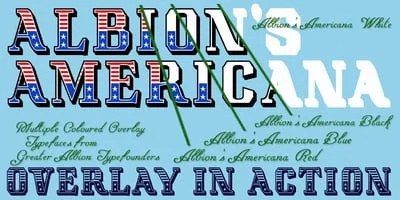
Albion's Americana Font
Albion's Americana Font is perfect for American restaurant branding, patriotic event posters, vintage diner signage, barbecue joint menus, craft brewery labels, country music promotions, Fourth of July celebrations, historical society materials, Americana-themed merchandise, and any project requiring authentic American heritage with nostalgic charm.
What makes Albion's Americana Font exciting is its powerful connection to American tradition and patriotic spirit that evokes the essence of classic Americana culture. The typeface features bold, confident letterforms with vintage-inspired design elements that capture the rugged independence and timeless values of American heritage. Its authentic character design speaks to audiences who appreciate traditional craftsmanship, hometown pride, and the enduring spirit of American entrepreneurship, making it ideal for businesses that want to communicate reliability, authenticity, and deep-rooted American values.
Albion's Americana Font family includes regular and bold weights with complete uppercase and lowercase alphabets, vintage-style numerals, classic punctuation marks, and decorative elements. The typeface features carefully crafted details that reference historical American typography while maintaining modern functionality and excellent readability across all contemporary applications.
Whether you're creating patriotic marketing campaigns, designing heritage brand identity, or developing materials for American cultural events, Albion's Americana Font delivers the typographic authenticity that connects with American pride and tradition. The font's nostalgic appeal and patriotic character make it particularly effective for local businesses, veteran organizations, and community celebrations. Its classic Americana aesthetic translates perfectly across vintage signage, merchandise designs, and digital platforms, ensuring your brand communicates genuine American spirit that resonates with audiences who value tradition, craftsmanship, and hometown authenticity.